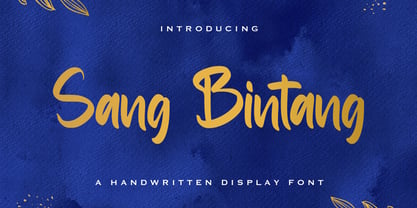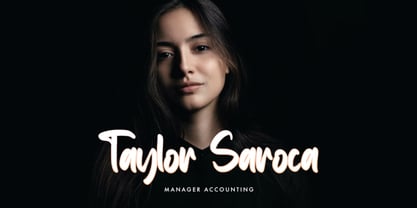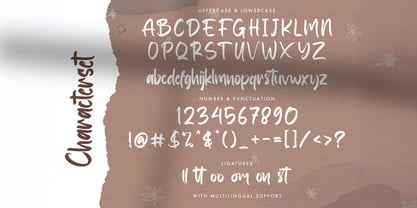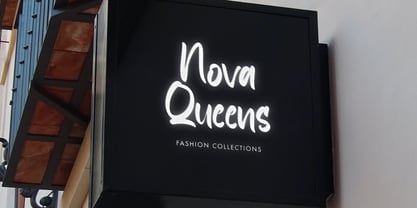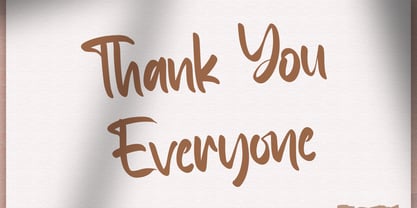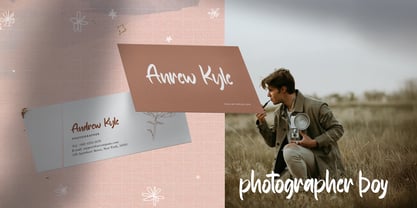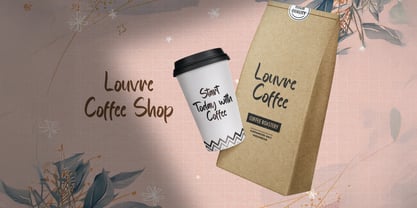
Sang Bintang
by Stringlabs Creative Studio
The Sang Bintang Font Family was designed by Virgiawan Listanto and published by Stringlabs Creative Studio. Sang Bintang contains 1 styles. More about this family
Sang Bintang is a graceful handwritten font that shines with elegance and personality. Inspired by starlit nights and heartfelt expression, its flowing lines and soft curves create a naturally beautiful rhythm perfect for designs that need a dreamy, personal touch.
Designers: Virgiawan Listanto
Foundry: Stringlabs Creative Studio